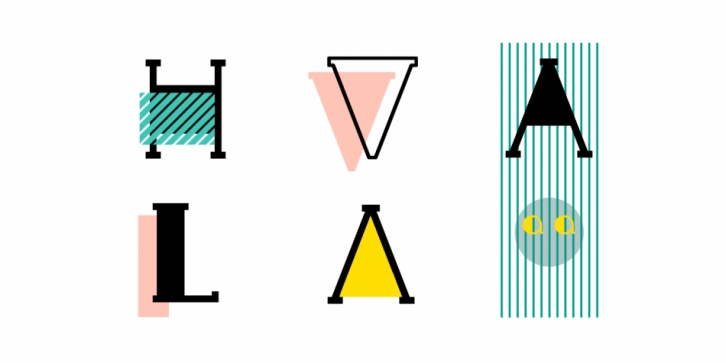
Designed by Alex Etewut, Hvala is a display slab and art deco font family. This typeface has two styles and was published by Etewut.
Hvala is a display typeface based on slab serif. All European languages are included.
‘Hvala’ means praise.
Remember it when you design your graphics using my font. It’s a pure magic to express your respects or/and expect them back.